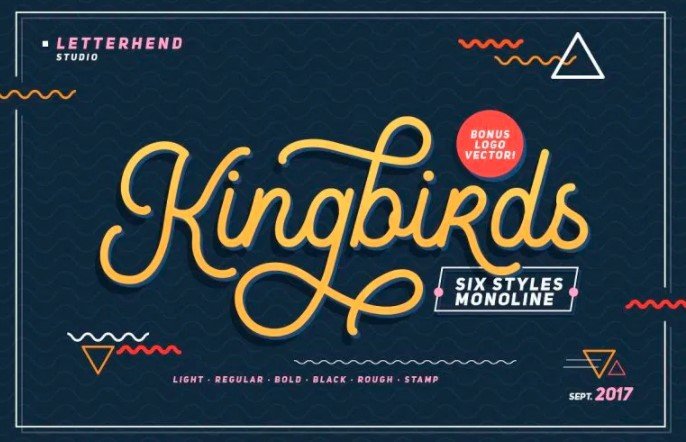
What if I provided you with the typeface used in popular and noteworthy designs? You will be amazed by Kingbirds Monoline Script Font, which boasts over 6 distinct, beautiful, and unique styles, all shared by the Letterhand company. It’s perfect for easily creating playful web themes.
You can utilize this record-breaking typeface in your own way, everyone can easily utilize all of its stylistic attributes, ligatures, glyphs in their projects to make them great vibes.
View Of Kingbirds Monoline Script Font
The typeface that is best to use with baloo font, and the typeface that we are presenting here, contains lots of unique styles including light, regular, bold, and cool designs. You can easily use it in all computer applications like adobe photoshop, InDesign, and illustrator.
The typeface is suitable for all elegant works that will awesome and eye-catchy when they will create by using this mind-blowing texture typeface. You can also use it with the combination of enlighten your destiny font.